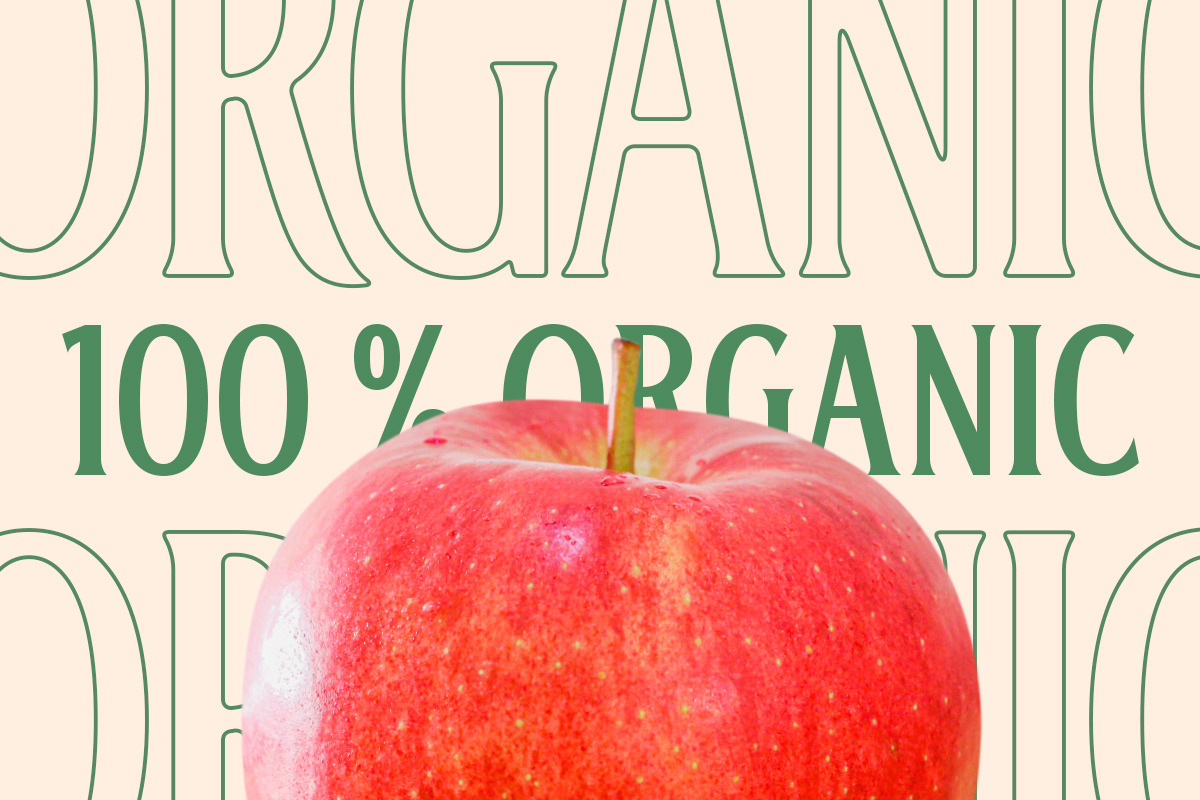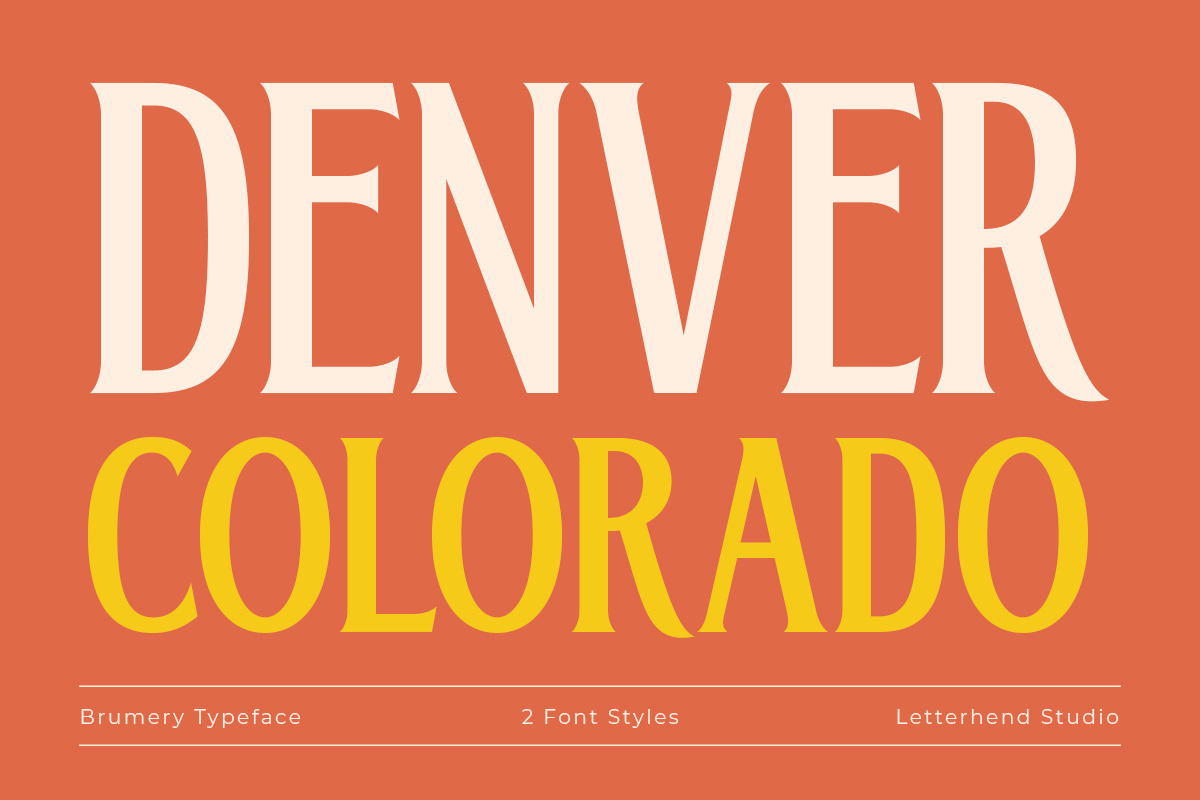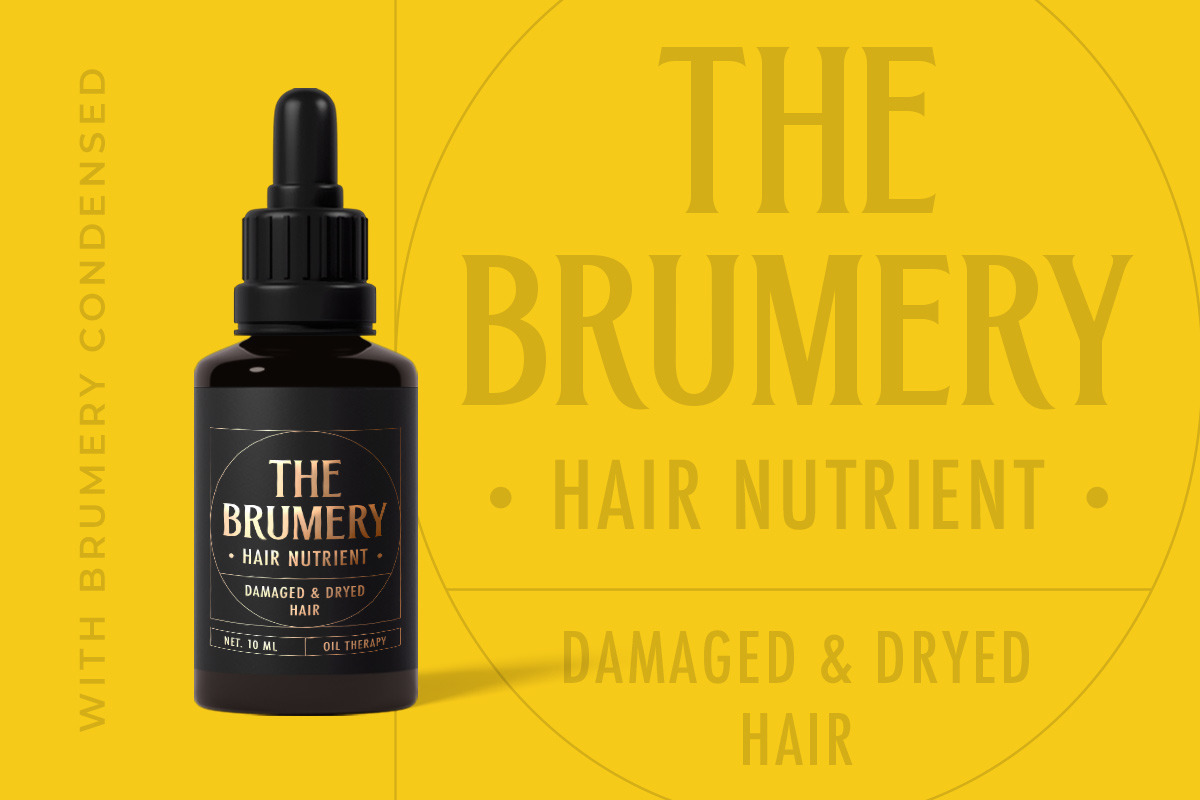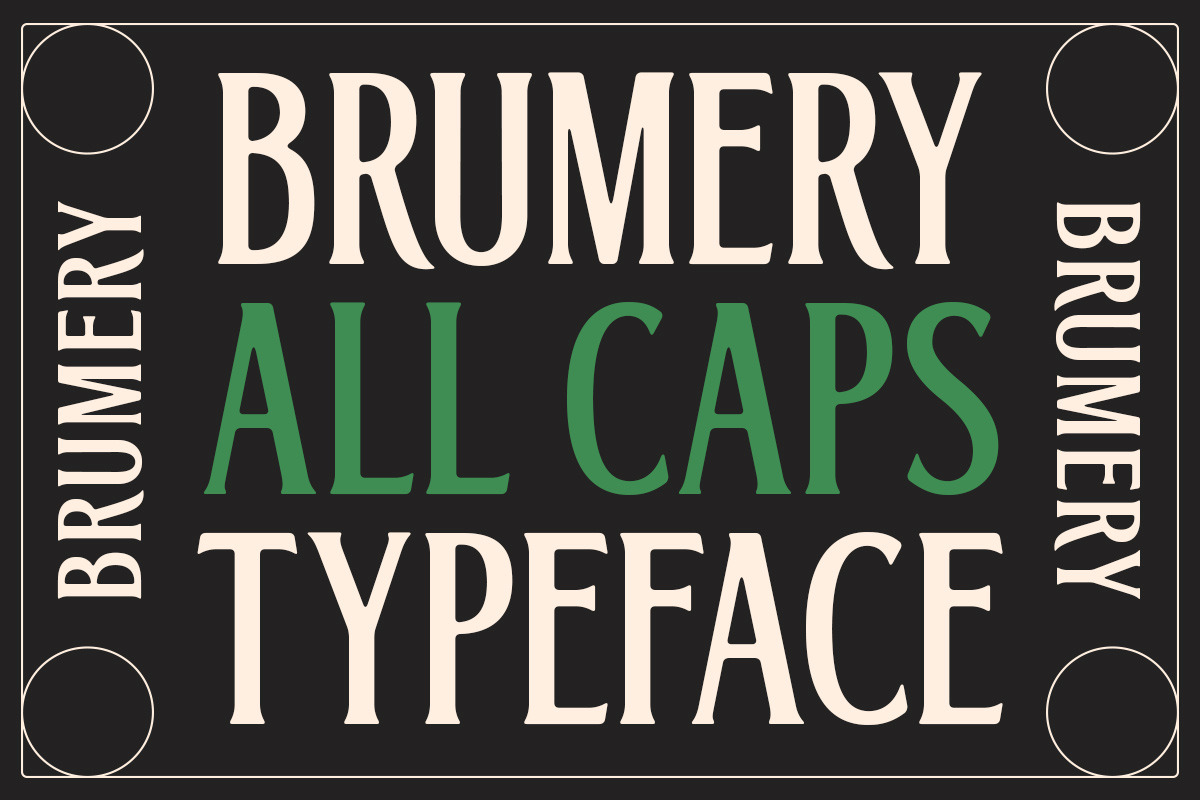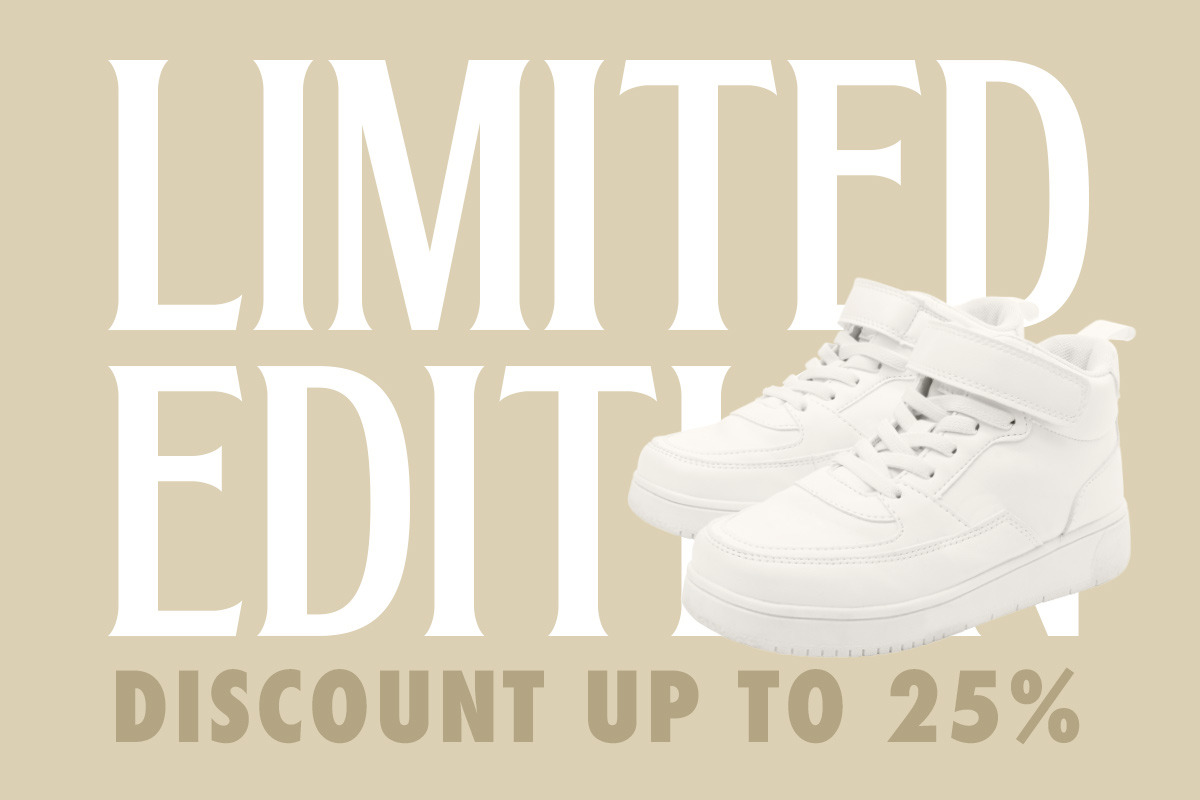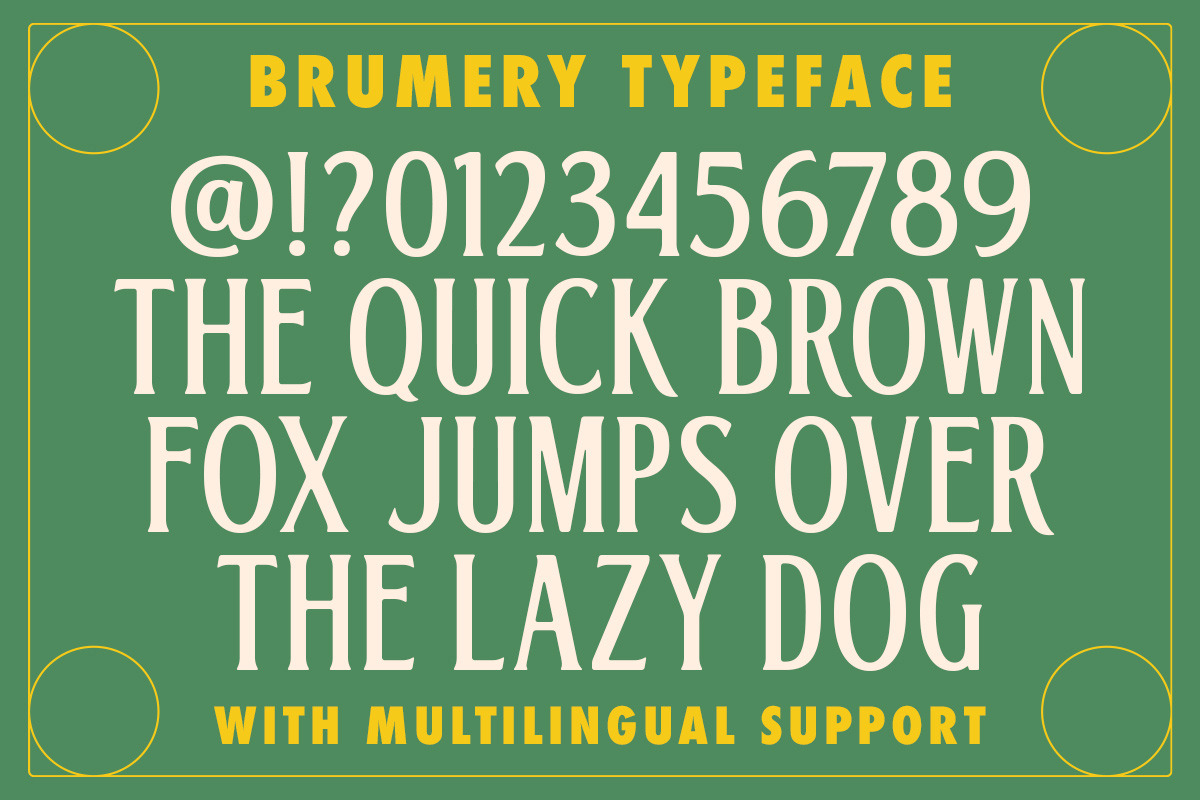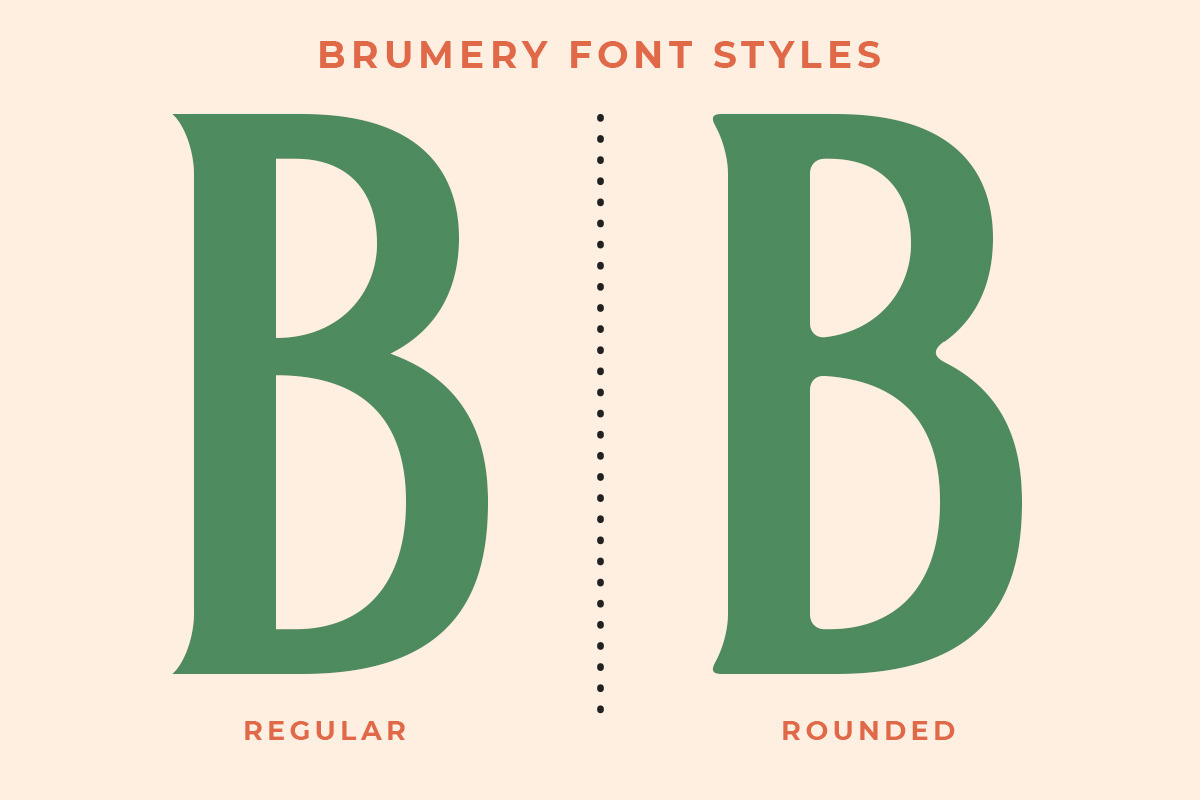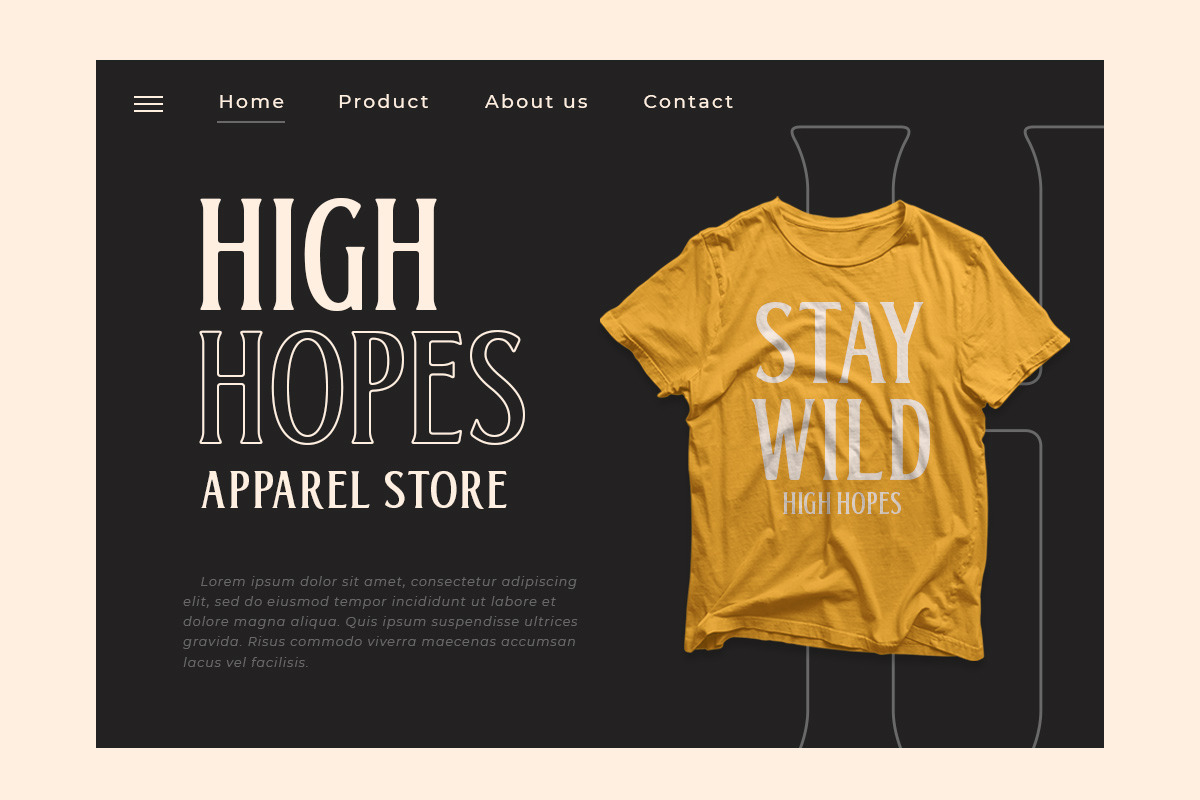
Brumery Condensed
Brumery Condensed is a sleek condensedfont. Perfect to be applied to the other various formal forms such as invitations, labels, logos, magazines, books, greeting / wedding cards, packaging, fashion, make up, stationery, novels, labels or any type of advertising purpose.